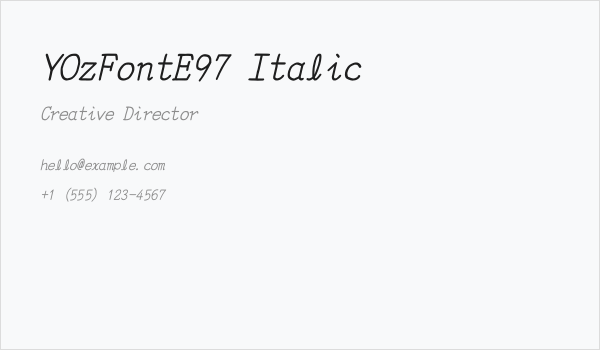
YOzFontE97 Italic Font
YOzFontE97 Italic Description
This font features a classic and elegant italic style, characterized by its smooth, flowing lines and slight slant to the right. The uppercase letters are distinct with a refined touch, while the lowercase letters maintain a consistent and harmonious appearance. The numerals are clear and easy to read, complementing the overall aesthetic. Special characters are well-integrated, adding versatility to the font's use. The design is both sophisticated and approachable, making it suitable for a variety of applications.
Overall StyleClassic
Use CaseHeadlines, Logos, Invitations
Proposed ProjectsIdeal for wedding invitations, elegant branding, personal stationery, and sophisticated editorial design.